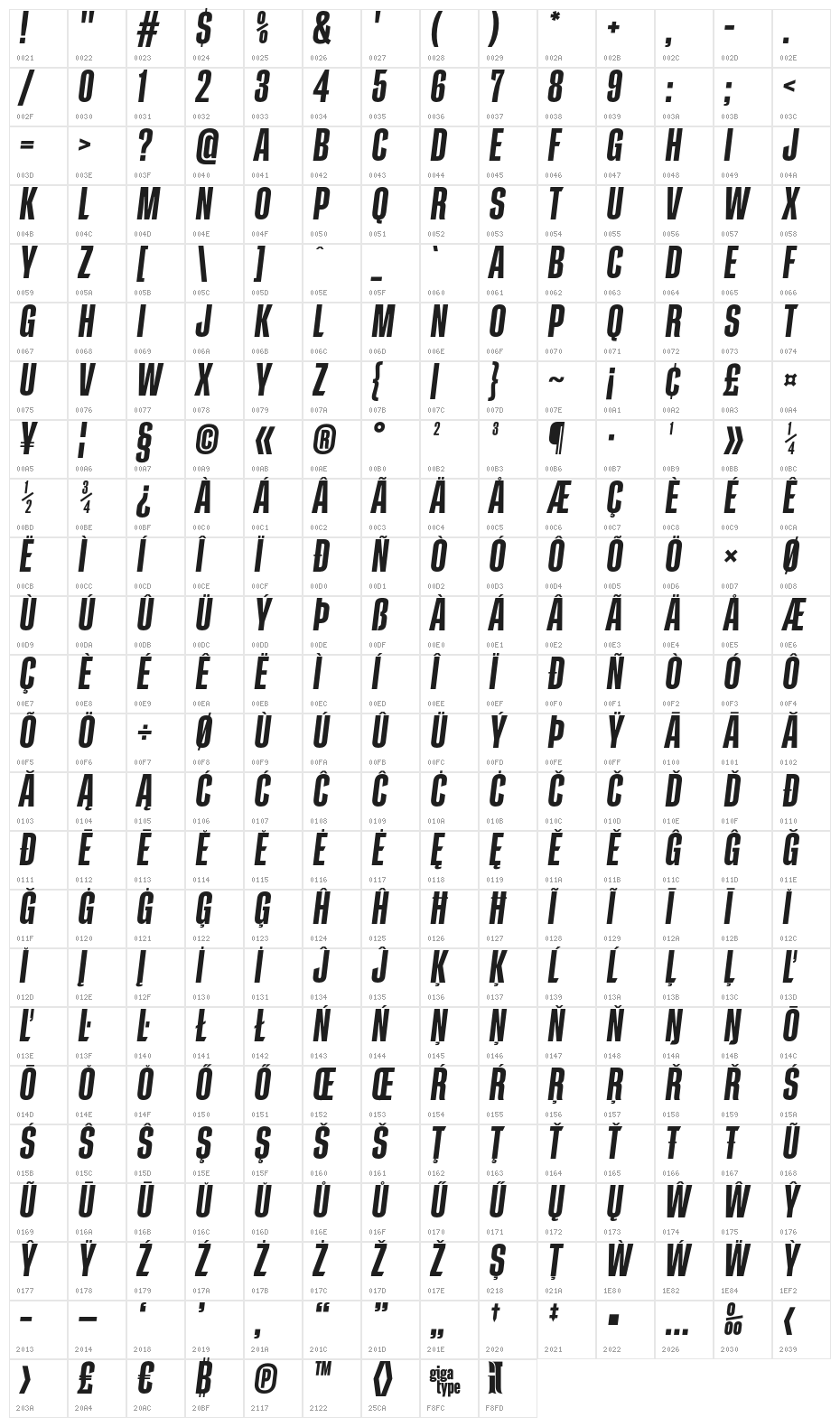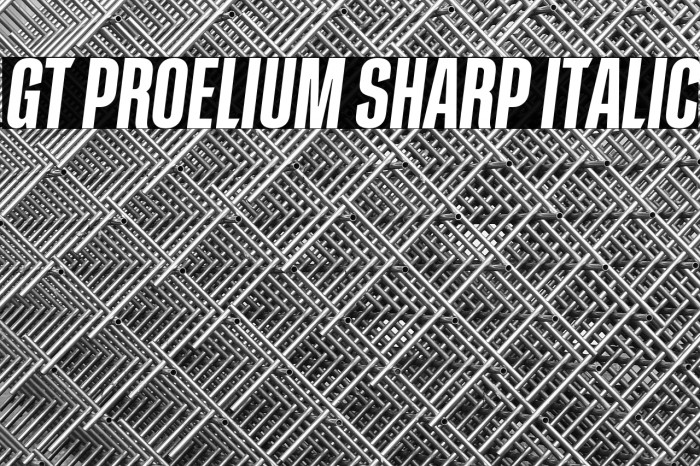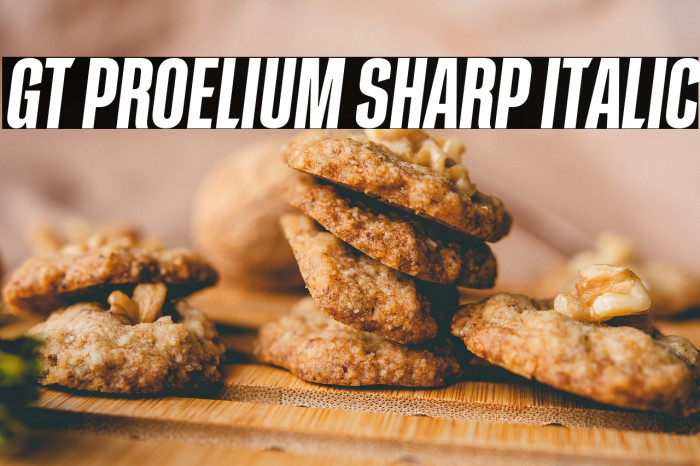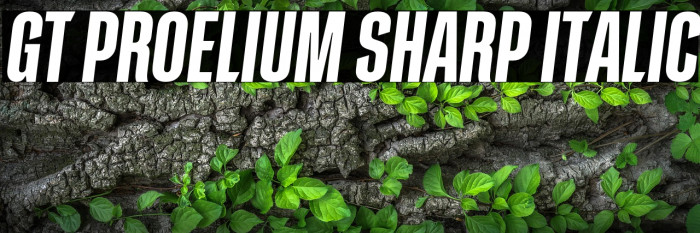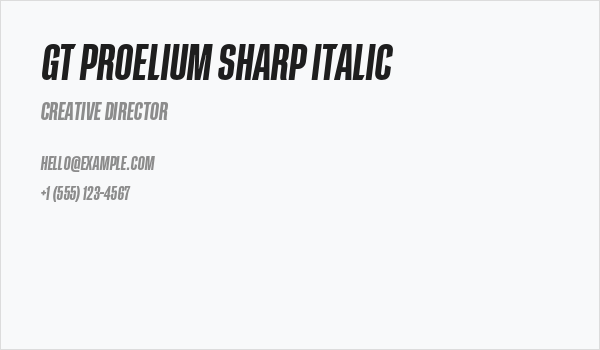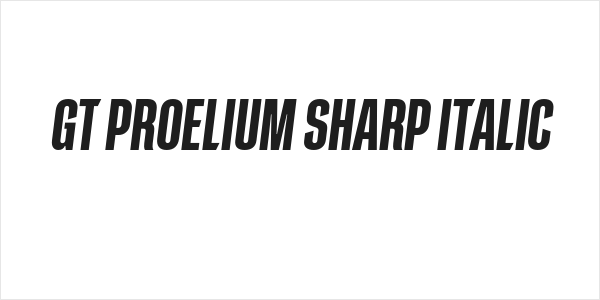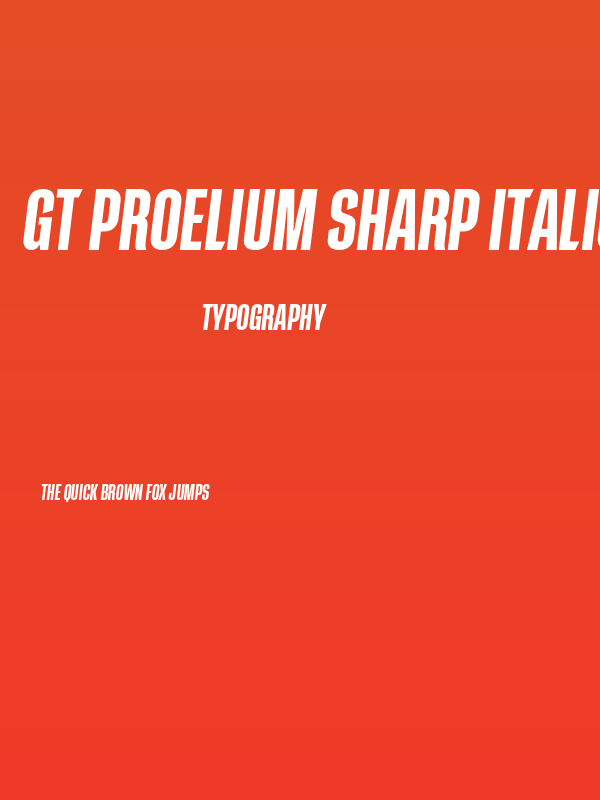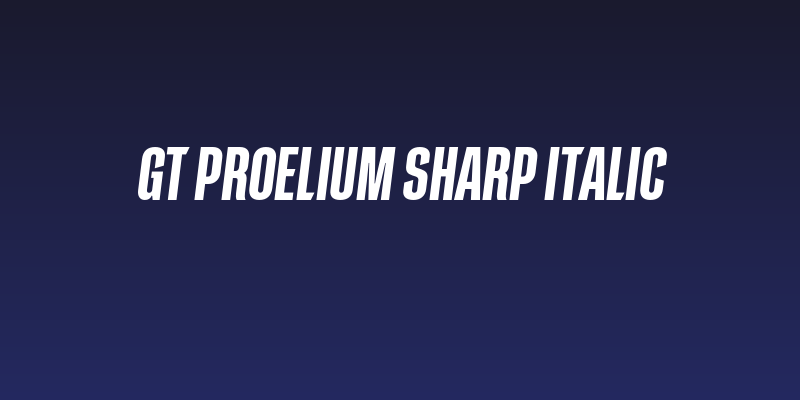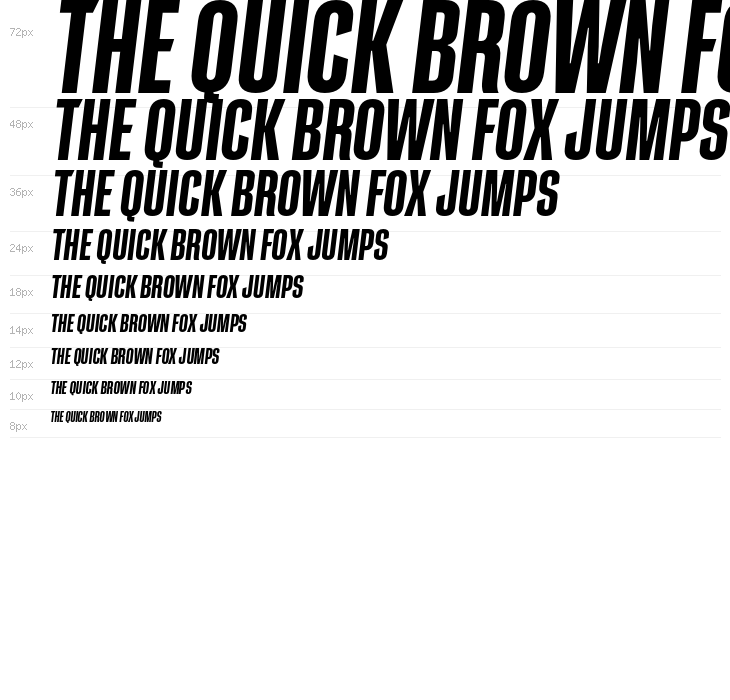
GT Proelium Sharp Italic Font
GT Proelium Sharp Italic Description
A bold, italic sans-serif font with sharp edges and a modern, aggressive style.
| Overall Style | Modern, Aggressive |
| Use Case | Headlines, Branding, Posters |
| Proposed Projects | Sports branding, dynamic posters, impactful headlines. |